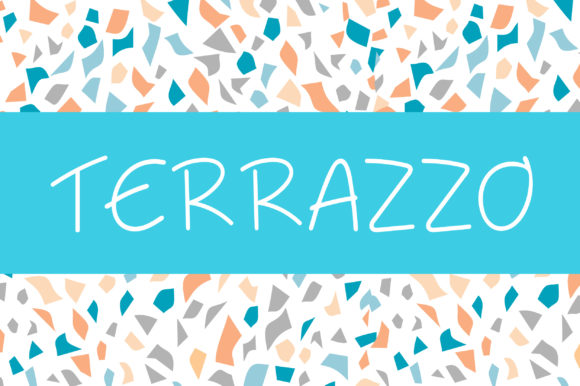
Terrazzo Font
Meet Terrazzo, a charming handwritten font that will add a touch of character to your creative endeavors.
Picture this: you're crafting a blog post that demands attention. Terrazzo's whimsical charm will draw your readers in, making every word sing off the page. Its effortless flow is the secret ingredient for capturing their imagination.
But wait, there's more! This versatile font is an artist's dream. It dances gracefully across wedding invitations, adding a touch of elegance to your special day. It brings life to logos and labels, making your brand stand tall.
And when you need a touch of personality in your designs? Terrazzo delivers with flair. Its signature style adds a lively spark to social media posts, making your content impossible to ignore.
Embrace the power of handwritten beauty with Terrazzo. Let its playful spirit elevate your projects to new heights.